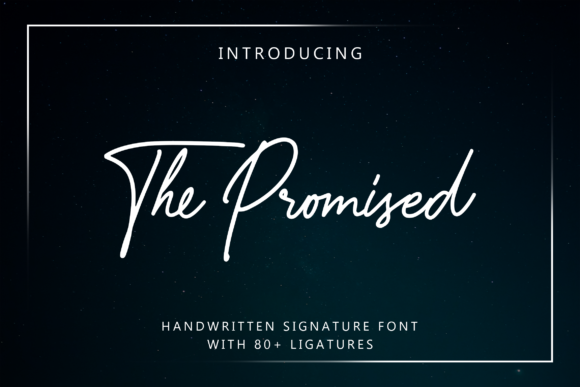
Unleash the enchantment of handwritten elegance with The Promised Font, a captivating script font family that will leave you spellbound. This masterpiece from Moonstone Co. exudes a timeless charm, effortlessly adding a touch of sophistication to any design project.
Immerse yourself in the world of The Promised, where each letter dances across the page with a graceful fluidity, reminiscent of a gentle breeze caressing the leaves. Its delicate strokes and subtle flourishes add a personal touch that will make your designs stand out from the crowd.
With The Promised, you'll have the power to transform ordinary words into heartfelt messages, enchanting invitations, and captivating social media posts. Its versatility knows no bounds, making it the perfect choice for branding, logo design, wedding stationery, and any project that calls for a touch of elegance.
Imagine the allure of a handwritten love letter, the warmth of a heartfelt thank-you note, or the excitement of a personalized invitation, all brought to life with The Promised. Let your creativity soar as you explore the endless possibilities this font has to offer.
The Promised is not just a font; it's an experience. It's a journey into the world of timeless beauty and heartfelt expression. Once you embrace its charm, you'll wonder how you ever designed without it.
Don't settle for ordinary fonts. Choose The Promised and elevate your designs to new heights of elegance and sophistication. Let your words dance with grace and captivate your audience with the timeless allure of handwritten beauty.